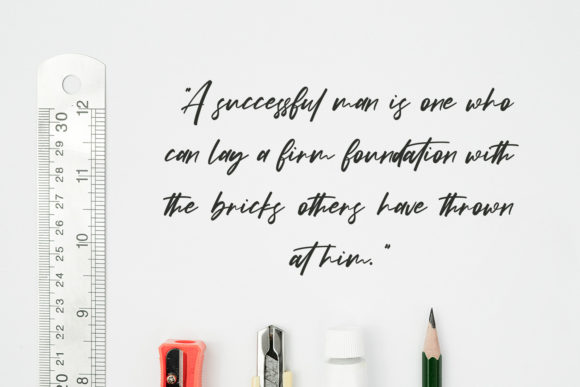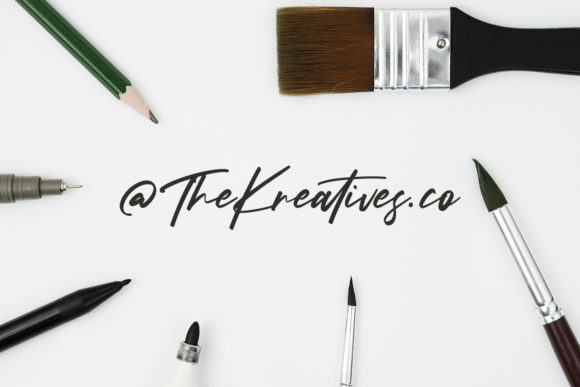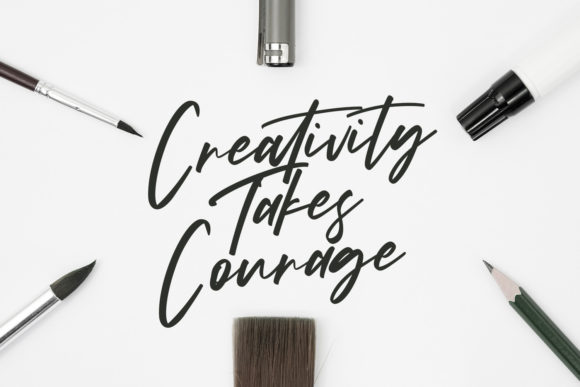
Introduction to Kreatives Script Font
As designers, we’ve all been there – staring at a blank canvas, trying to conjure up the perfect idea for a project. The blank page can be daunting, but it’s in these moments that our creativity shines. And sometimes, all it takes is the right design resource to spark that elusive idea. For many designers, the Kreatives Script Font is that elusive spark, adding a luxury feel to any project it’s used in.
With its unique feel and stunning impact, the Kreatives Script Font is a game-changer for any creative project. Whether you’re working on a high-quality brochure, a design for a client, or even just a personal project, this font is sure to elevate your design to the next level. And the best part? It’s available for free download, making it an accessible design resource for designers of all levels.
But what really sets the Kreatives Script Font apart is its versatility. From wedding invitations to product packaging, this font can be used in a variety of contexts to add a touch of elegance and sophistication. And with its transparent background, you can easily layer it over other design elements to create a truly unique look.
Key Features of Kreatives Script Font
- High-quality, hand-drawn design ideal for creative projects requiring a unique touch
- Features a transparent background, making it easy to overlay on any design or image
- Perfect design resource for designers, artists, and creatives working on a wide range of projects
- Includes a range of ligatures and swashes to add an extra touch of elegance to your design
Honest Review: Kreatives Script Font
I recently stumbled upon the Kreatives Script Font while searching for a high-quality, free download to enhance my creative project. As a designer, I was excited to see how it would perform.
Here are some things that work well: ✨
- Beautiful, elegant design that’s perfect for weddings, invitations, and other special occasions.
- High-quality resolution that prints well, even on large-scale projects.
- Supports transparent background, making it easy to use with images and graphics.
However, there are a few limitations to consider: ⚠️
- No variations or style files available, which may limit your creative freedom.
Overall, I’m impressed with the Kreatives Script Font. It’s a great design resource for personal projects, and its high-quality design and transparent background make it a pleasure to work with. If you’re looking for a beautiful, free font for your next creative project, I’d definitely recommend giving it a try.
Kreatives Script Font is commonly used in creative projects such as wedding invitations, birthday party decorations, and social media graphics. It’s also a great font for adding a touch of elegance and sophistication to your designs.